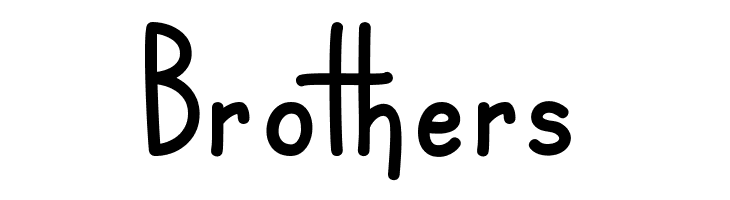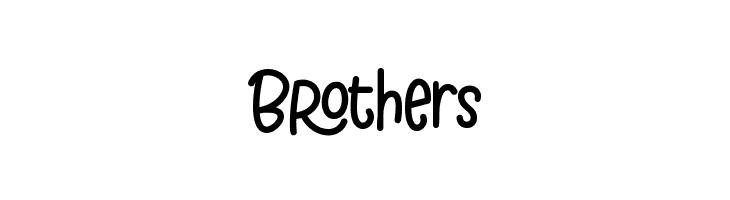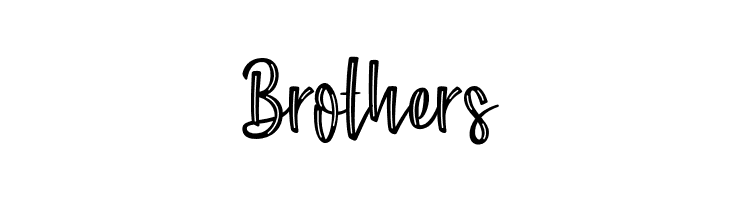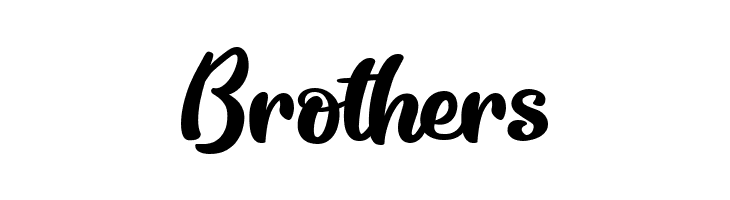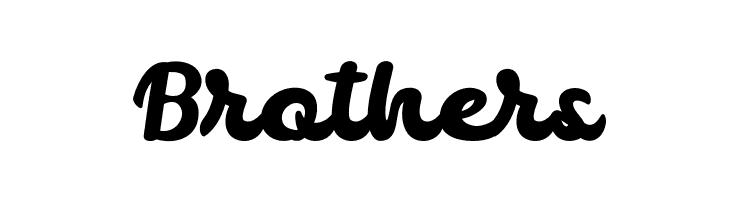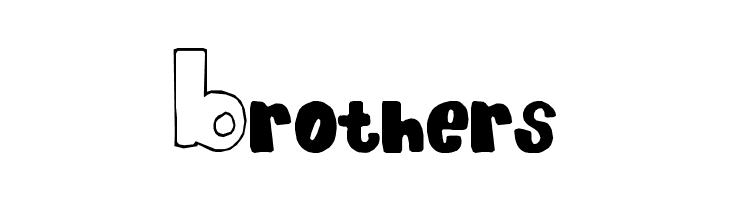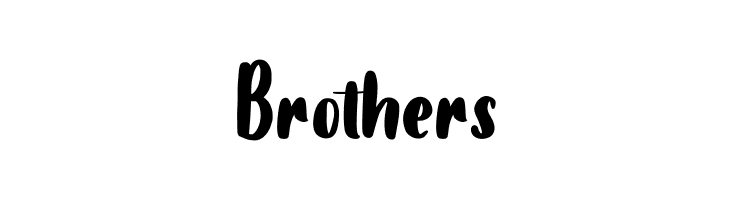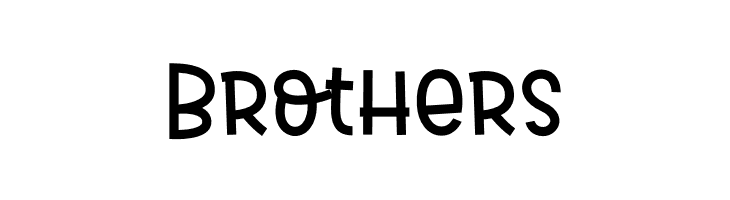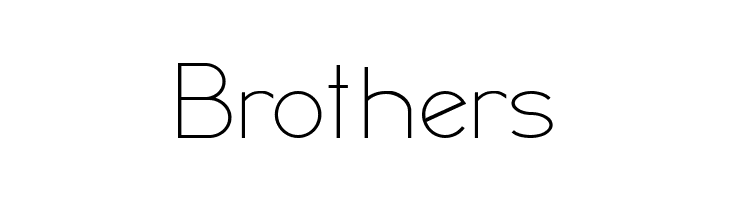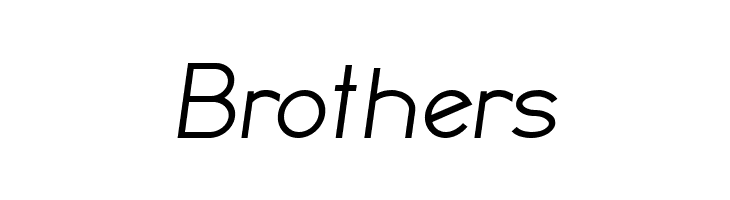
• Choco Cakes
A playful, handwritten font with smooth, rounded edges and a casual style.
• Choco Candy
A playful, bubbly font with a hand-drawn, whimsical style.
• Choco Chips
A playful, bold handwritten font with rounded, smooth characters.
• Choco Crepes
A playful, bold, and rounded font with a hand-drawn style.
• Choco Splash
A playful, bold, hand-drawn font with rounded strokes and a whimsical style.
• CHOCODONUTRegular
A playful, bold font with rounded, hand-drawn style strokes.
• Chocogirl
A whimsical, curly font with decorative swirls on each character.
• Chocolada Bold
A bold, modern sans-serif font with geometric shapes and uniform strokes.
• Chocolada Bold Italic
• Chocolada Italic
A sleek, modern italic font with clean lines and balanced proportions.
• Chocolada Regular
A clean, geometric font with a modern and minimalistic style.
• Chocoladine Demo
A playful, bold font with rounded strokes and decorative flourishes.
• chocolate
A bold, playful script font with a handwritten feel.
• chocolate
A bold, cursive font with smooth, flowing lines and a dynamic appearance.
• Chocolate and Delight